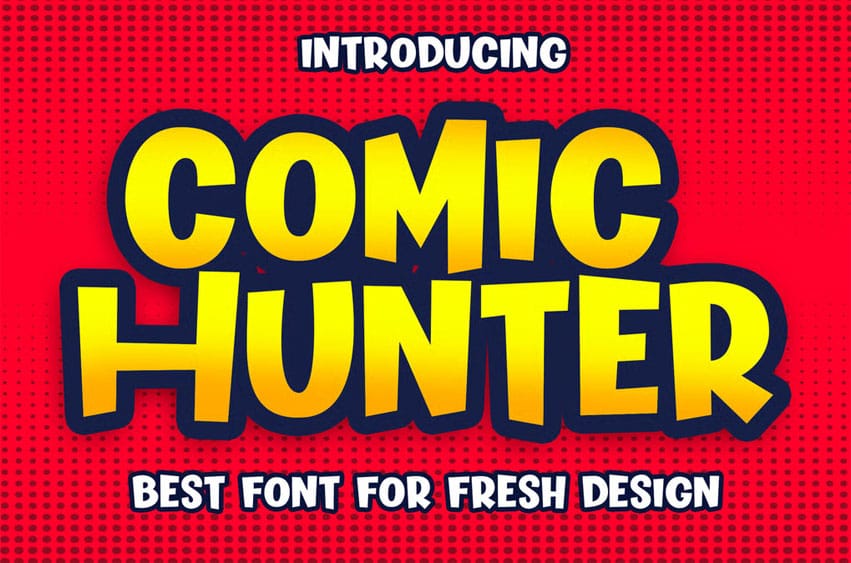
Comic Hunter Font is Fresh font that perfect for educational design, comic, kids book, kids magazine, zoo poster.
Perfectly crafted to meet all your design needs.